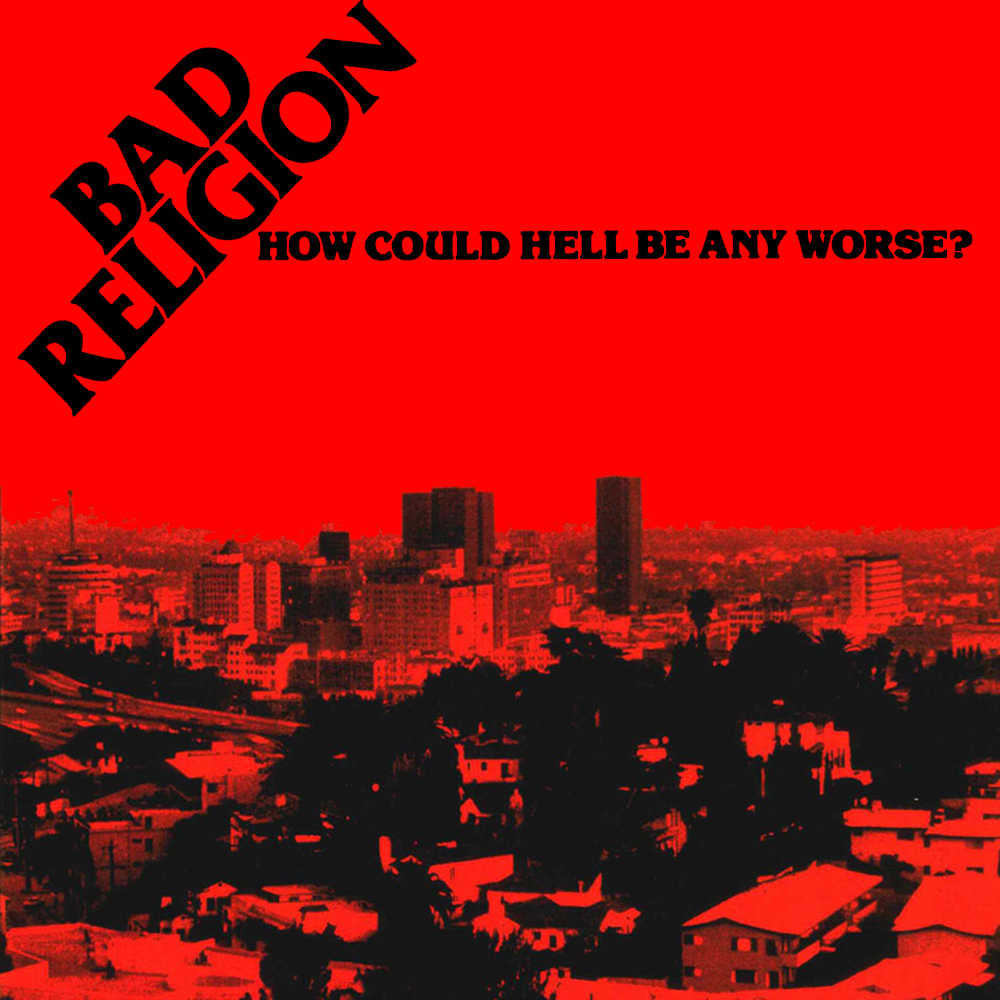
How Could Hell Be Any Worse Font
Fonts in UseHow Could Hell Be Any Worse? is the debut album of the American punk rock band Bad Religion, released in 1982. The album is known for its fast-paced, aggressive sound and politically charged lyrics, which tackle themes such as nuclear war and social injustice.
On the album cover of "How Could Hell Be Any Worse," the track list on the back features a slab serif font named Korinna, while the title and artist's name are presented in a flare serif font called Friz Quadrata Bold.